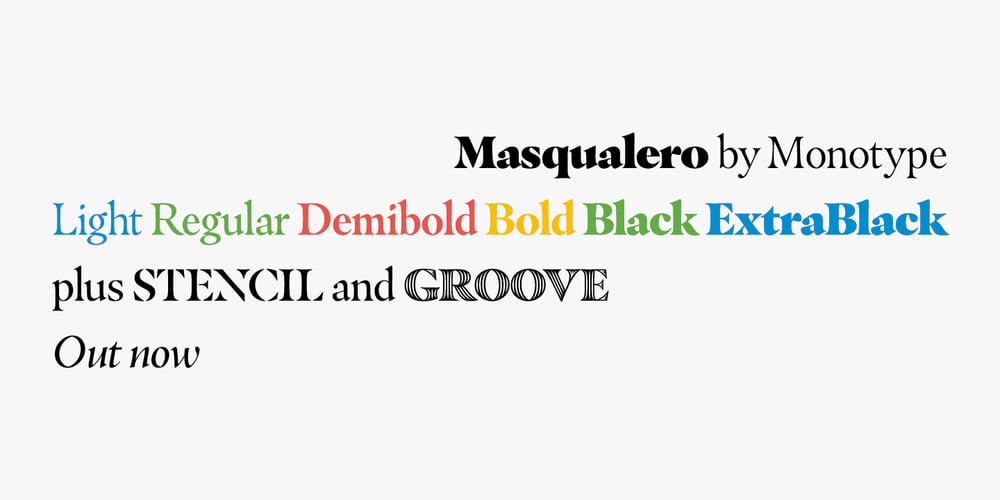
Masqualero
Masqualero font
Masqualero Font Family was designed by Jim Ford and published by Monotype. Masqualero contains 14 styles and family package options. The Masqualero™ family is a versatile solution for a deep and broad range of applications. In large sizes, the heavier designs are dark and handsome, while the lighter weights are charming and friendly in text copy. Thanks to its many variations and distinctive demeanor, both print and interactive designers will find that Masqualero expands their creative options, while setting the perfect tone to catch and hold readers’ attention. It’s About the Design Like the legendary jazz song of the same name, Masqualero is haunting and sophisticated. Drawn as a tribute to Miles Davis, its letterforms are as beautiful as his “Masqualero” composition. “I approached drawing the letters as if they were marble sculptures,” Says Jim Ford about his typeface. “Many sharp, black, modern sculptures filling a large park. All of them created with the same qualities – the flair of Miles’ electric funk and rock sounds, the sparkly smooth finish and serifs like trumpet bells, the sweet lyricism and the tone and clarity of Miles’ horn.” What’s Available With six weights and italics, in addition to Stencil and Groove display designs, Masqualero is available as a suite of OpenType Pro fonts, providing for the automatic insertion of small caps, ligatures and alternate characters. Pro fonts also offer an extended character set supporting most Central European and many Eastern European languages. Thoughts About Use A book or album cover set in the Masqualero design sends a message: what’s inside is of value. Like jazz, the Masqualero typeface takes ordinary basic concepts and slips them into something special. Readers take notice and immediately recognize that what they’re viewing is a cut above – and radiates quality. “I see Masqualero as a luxurious typeface for exquisite typography,” says Ford. “I wouldn’t use it to sell toys or hot dogs. Masqualero sells diamonds, boats, real estate and champagne.” Perfect Pairings Antique Olive™ Neue Kabel® Neue Frutiger® Quire Sans™ Trade Gothic®